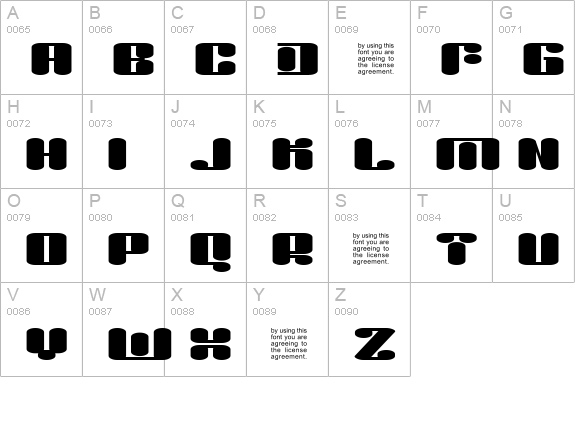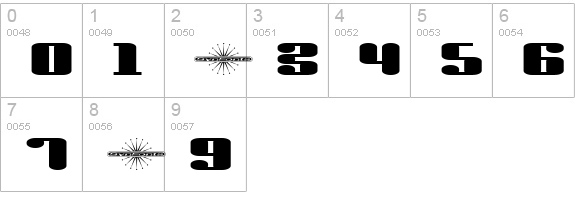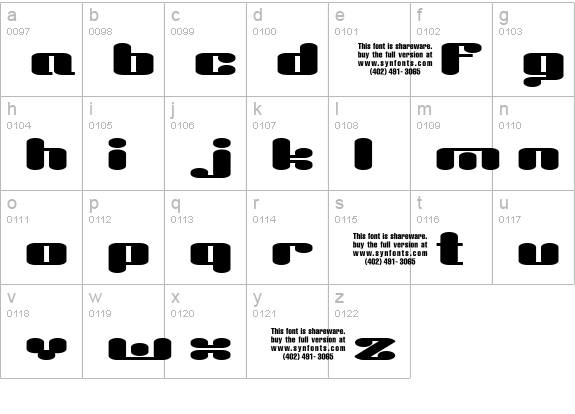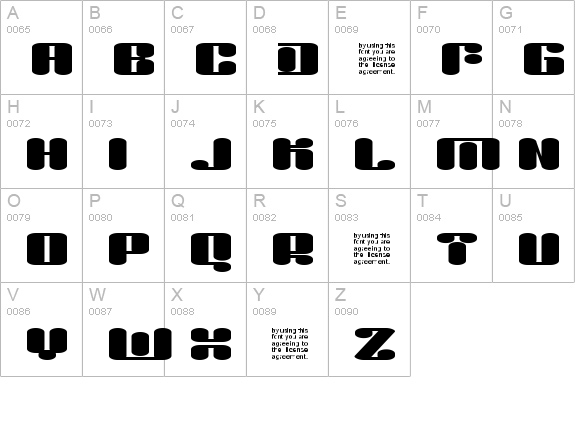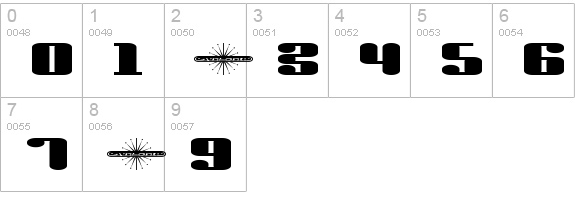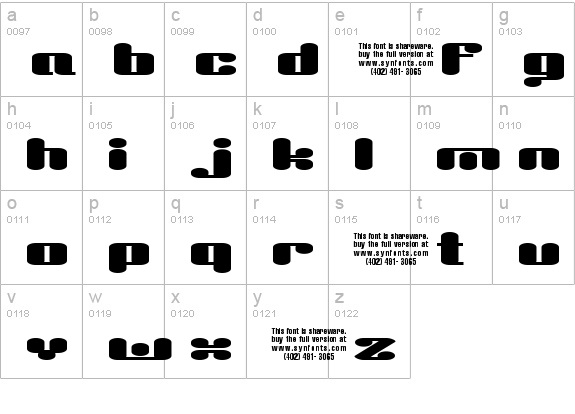
Liquid Sex UNPAID DEMO font is a stunning display font that exudes sensuality and elegance. Its fluid and alluring design makes it perfect for projects that require a touch of sophistication and glamour. With its bold, curvaceous letterforms and smooth lines, this font is sure to captivate and intrigue your audience. Best of all, the Liquid Sex UNPAID DEMO font is available for free download at FontsMarket.com, making it a fantastic choice for designers looking to add a touch of allure to their projects without breaking the bank. Whether you're working on a branding project, a poster design, or any other creative endeavor, this font will surely make a statement and leave a lasting impression. Download it today and let your creativity flow freely with Liquid Sex UNPAID DEMO font.